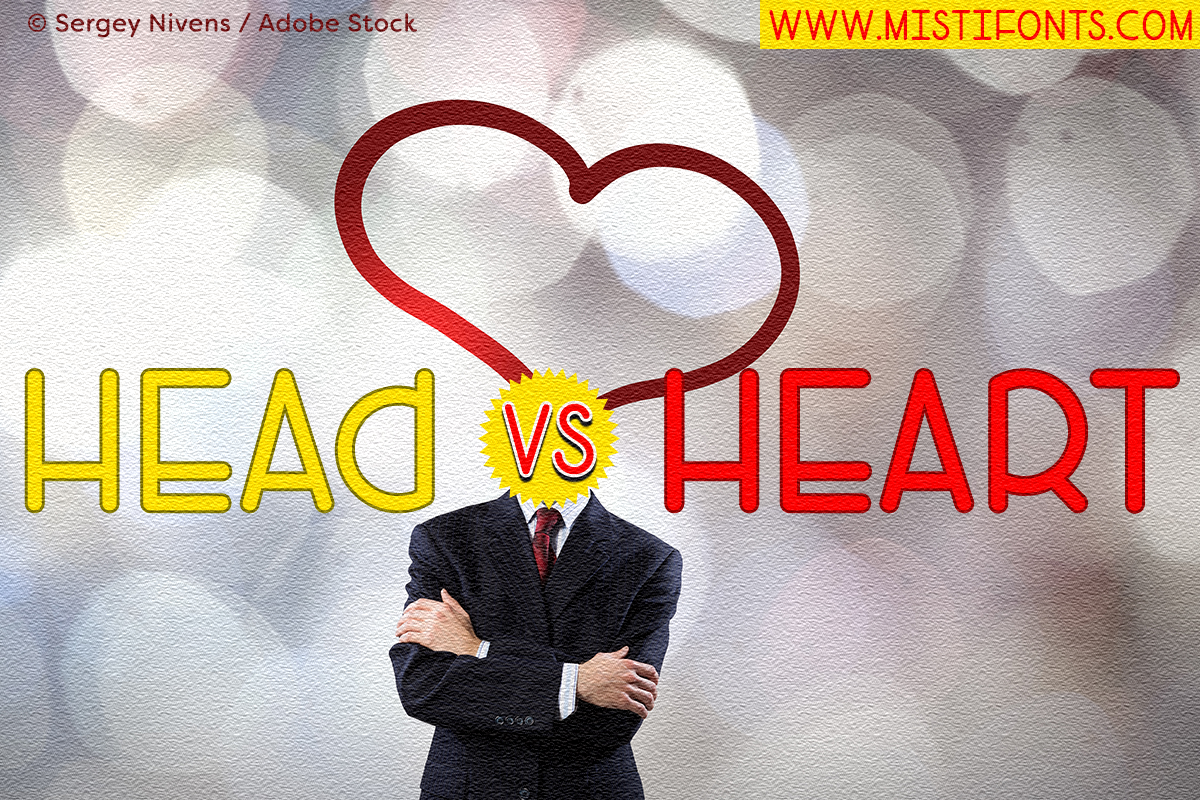
Head Versus Heart
Head Versus Heart is an all-caps font that is perfect for your design and craft projects!
Special Symbols:
Type _ (underscore) for the star
Type | (vertical bar) for the heart
Type {} (curly braces) for the heart swirls
Type [] (brackets) for the star swirls